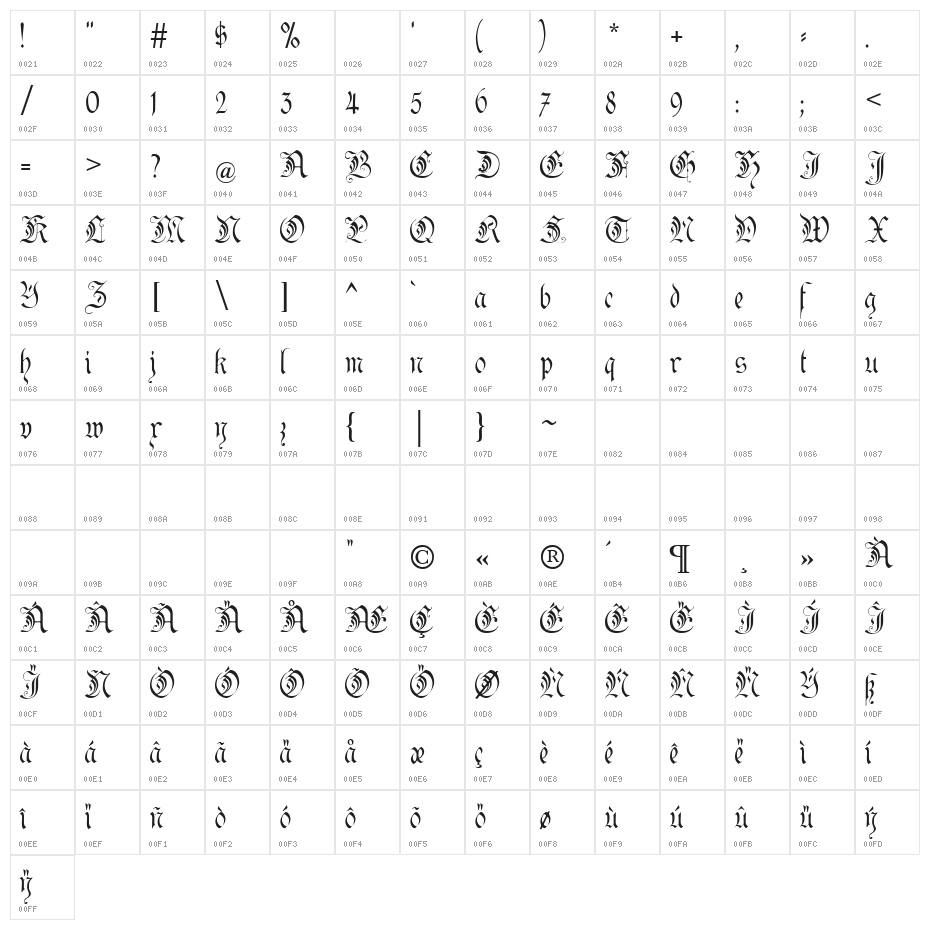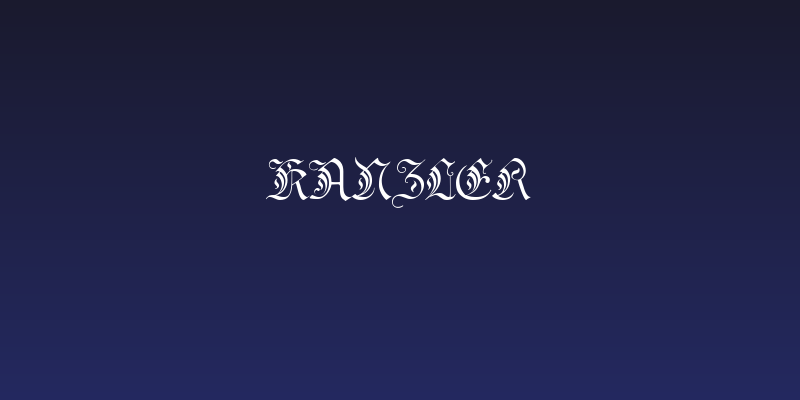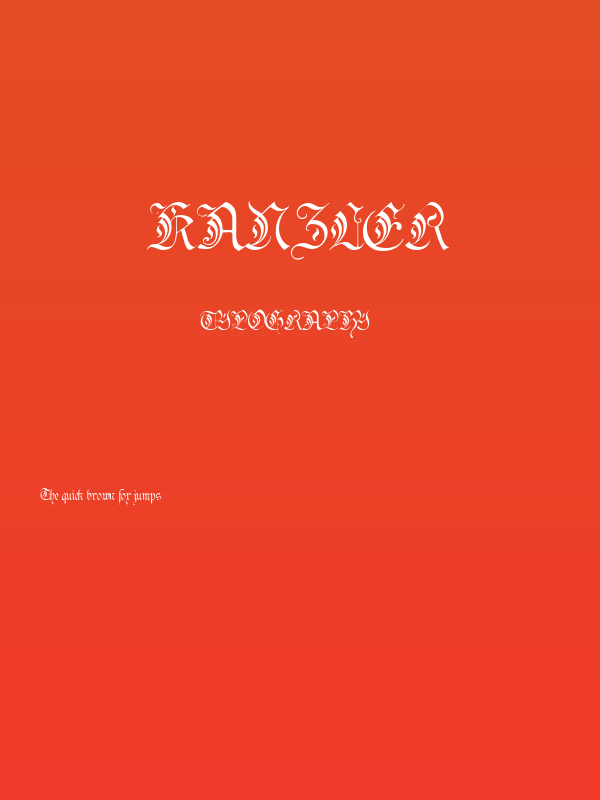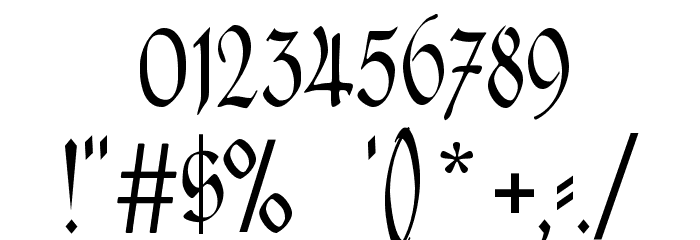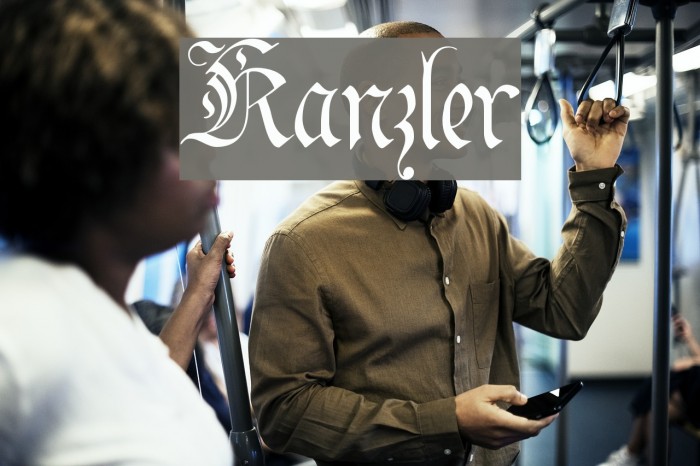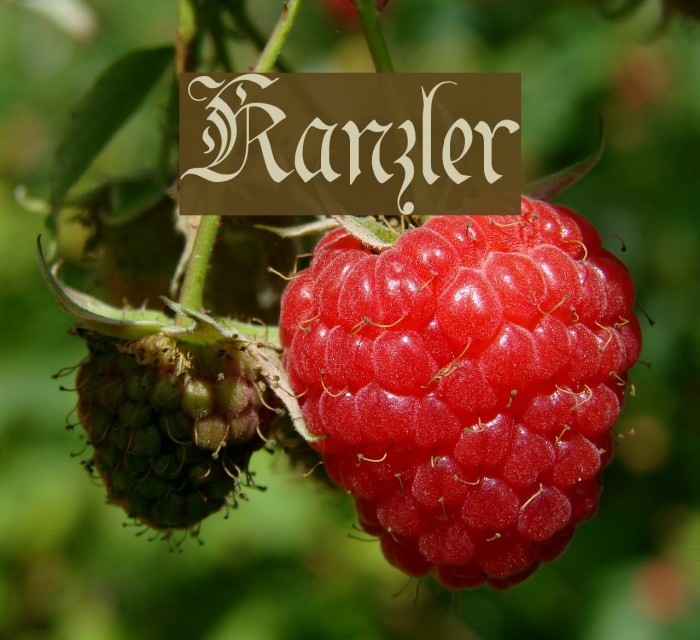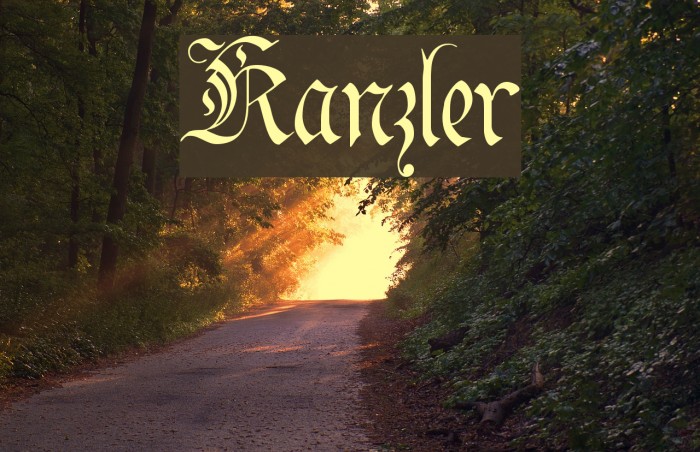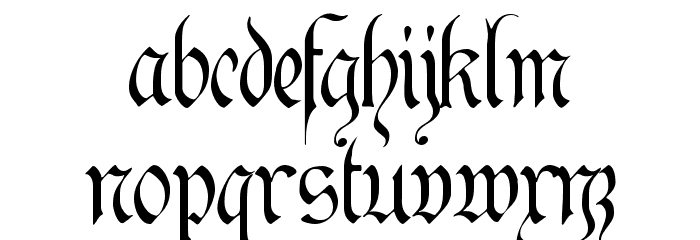
Kanzler Font
Kanzler Description
This font exhibits a classic blackletter style, characterized by its ornate and intricate design. The uppercase letters feature elaborate flourishes and sharp angles, giving them a dramatic and historical appearance. The lowercase letters maintain a similar aesthetic, with a slightly more restrained design that enhances readability while preserving the overall gothic feel. The numerals are consistent with the font's medieval theme, featuring unique curves and angles. Special characters are equally decorative, adding to the font's cohesive and stylized look. This font is perfect for projects that require a touch of elegance and tradition, such as invitations, certificates, or branding for luxury products.
| Use Case | Headlines, Logos, Decorative text |
| Proposed Projects | Ideal for wedding invitations, historical documents, luxury branding, and decorative certificates. |